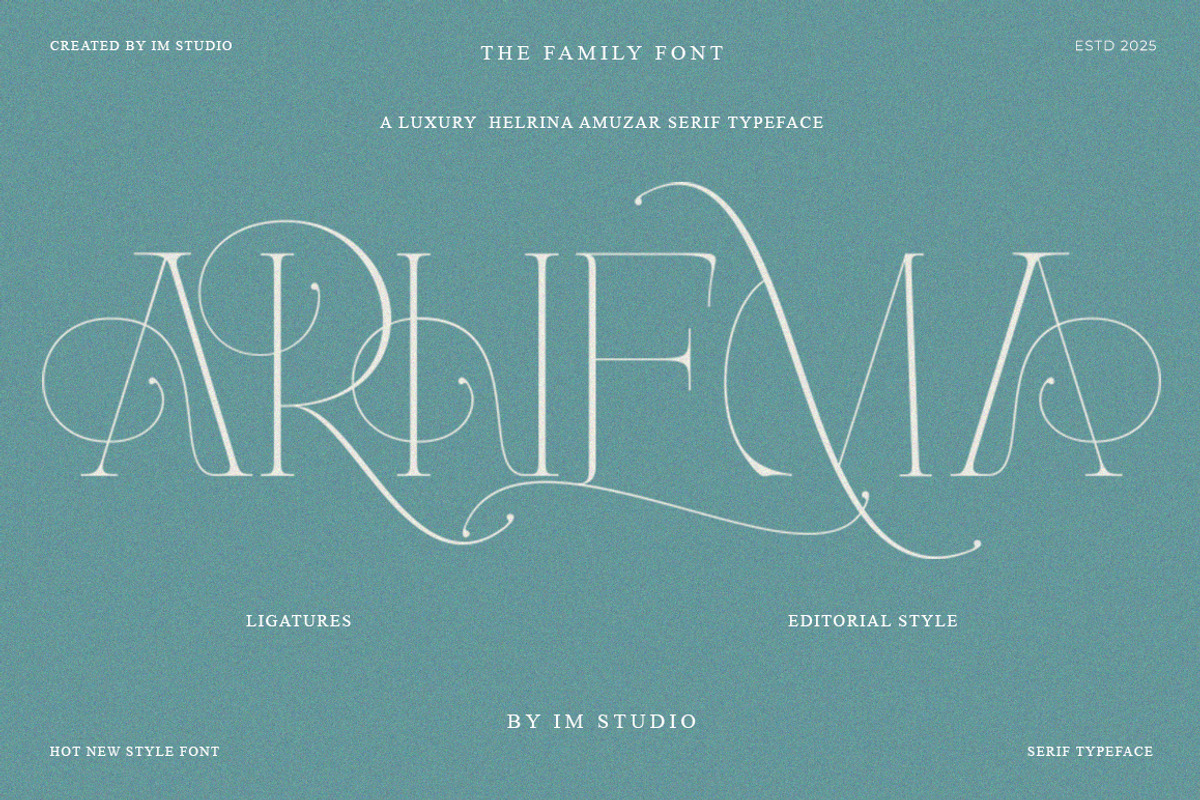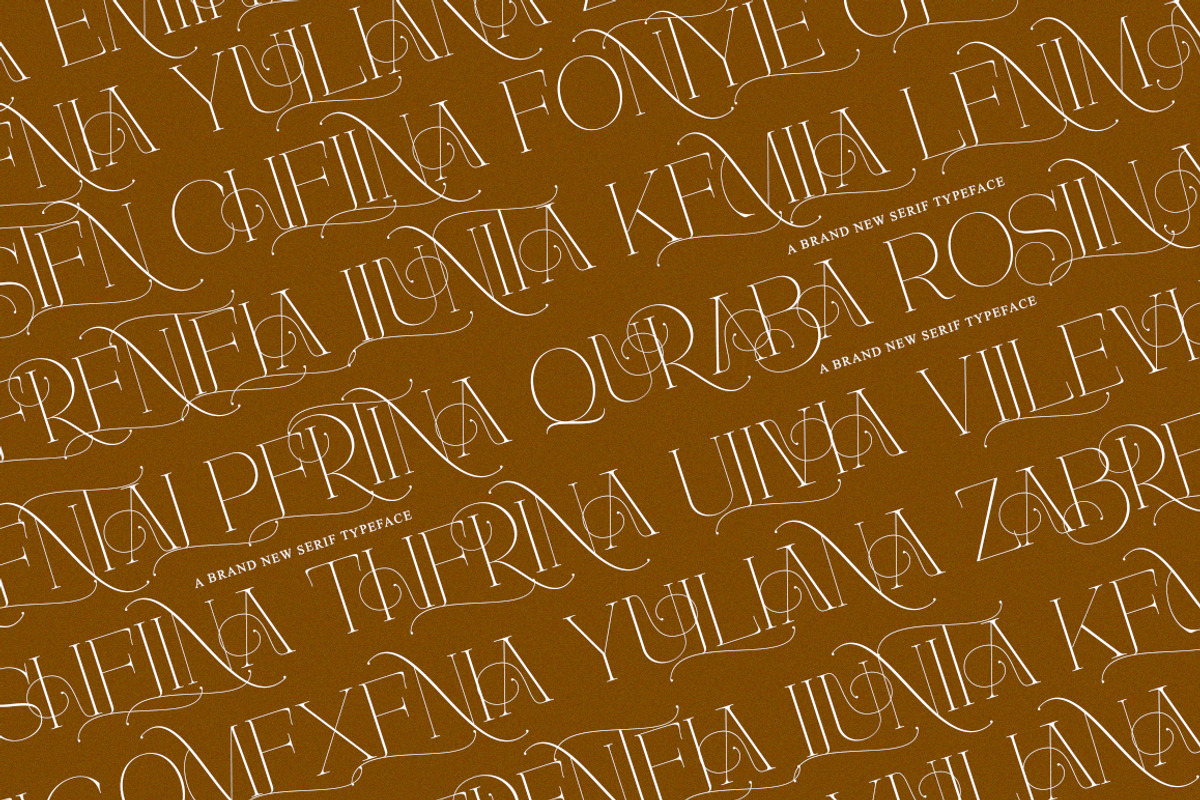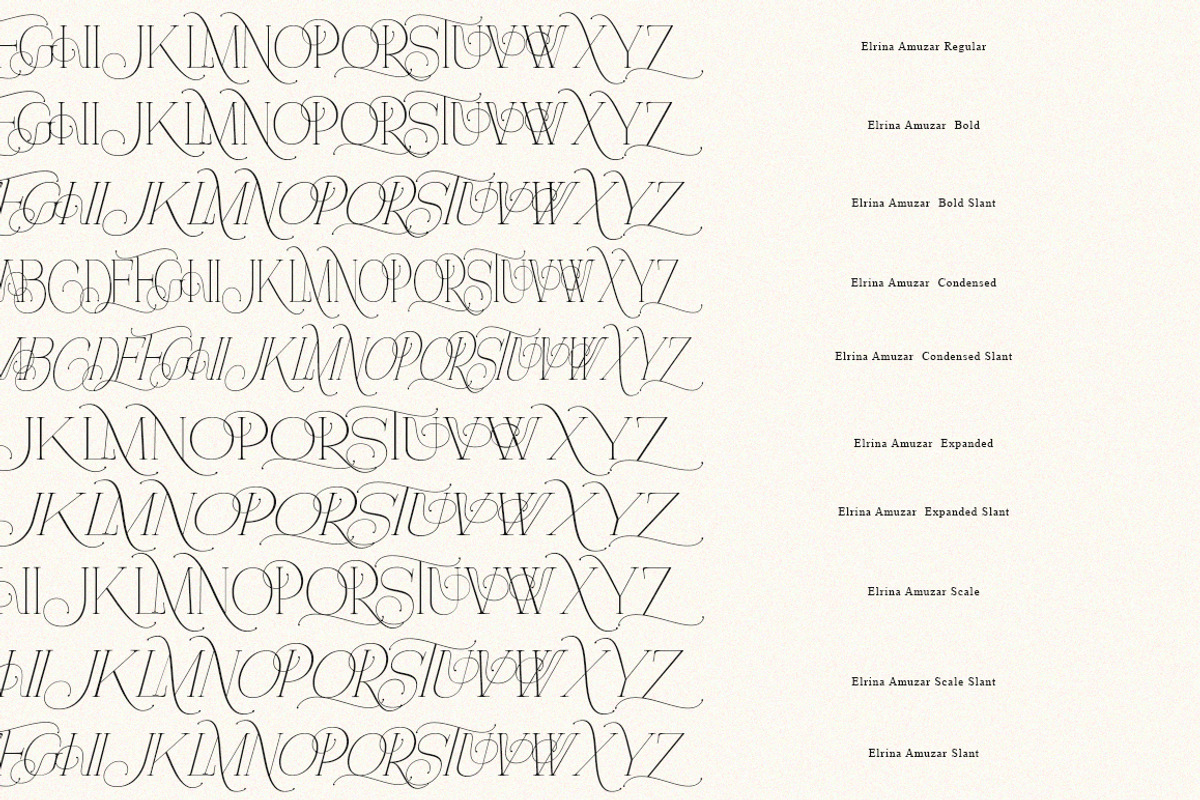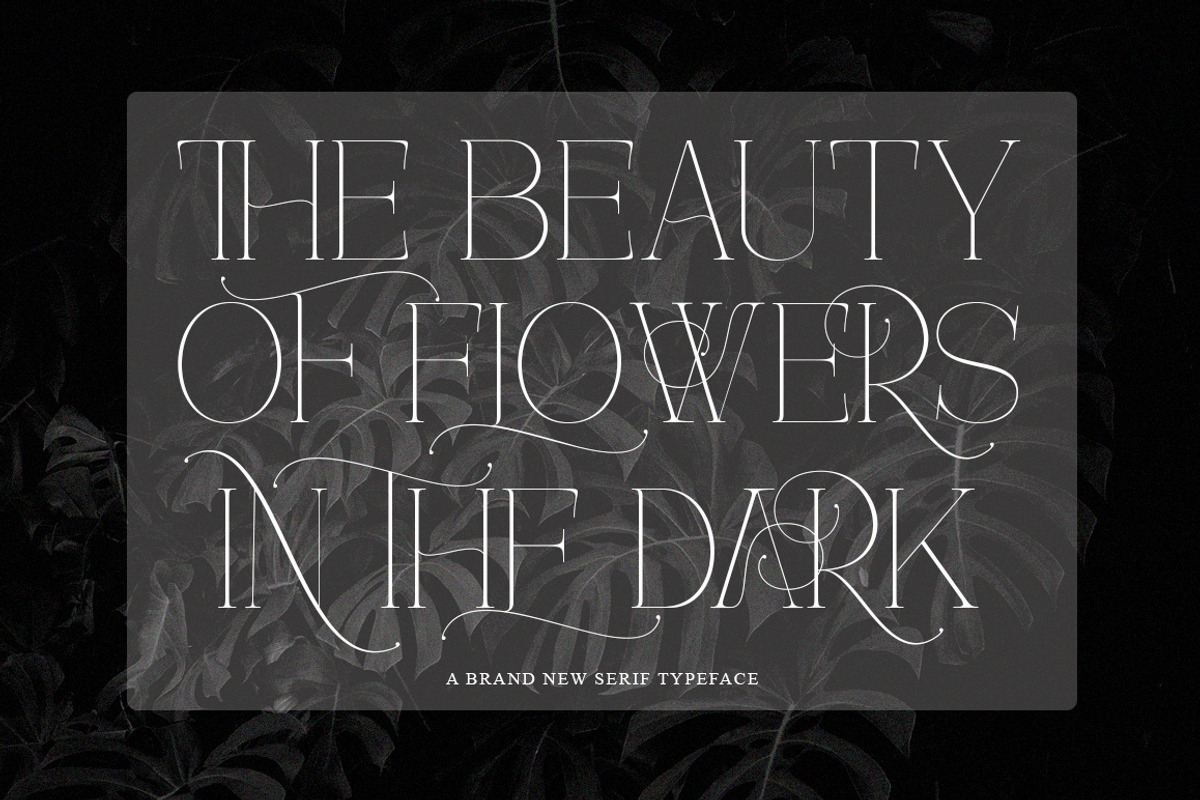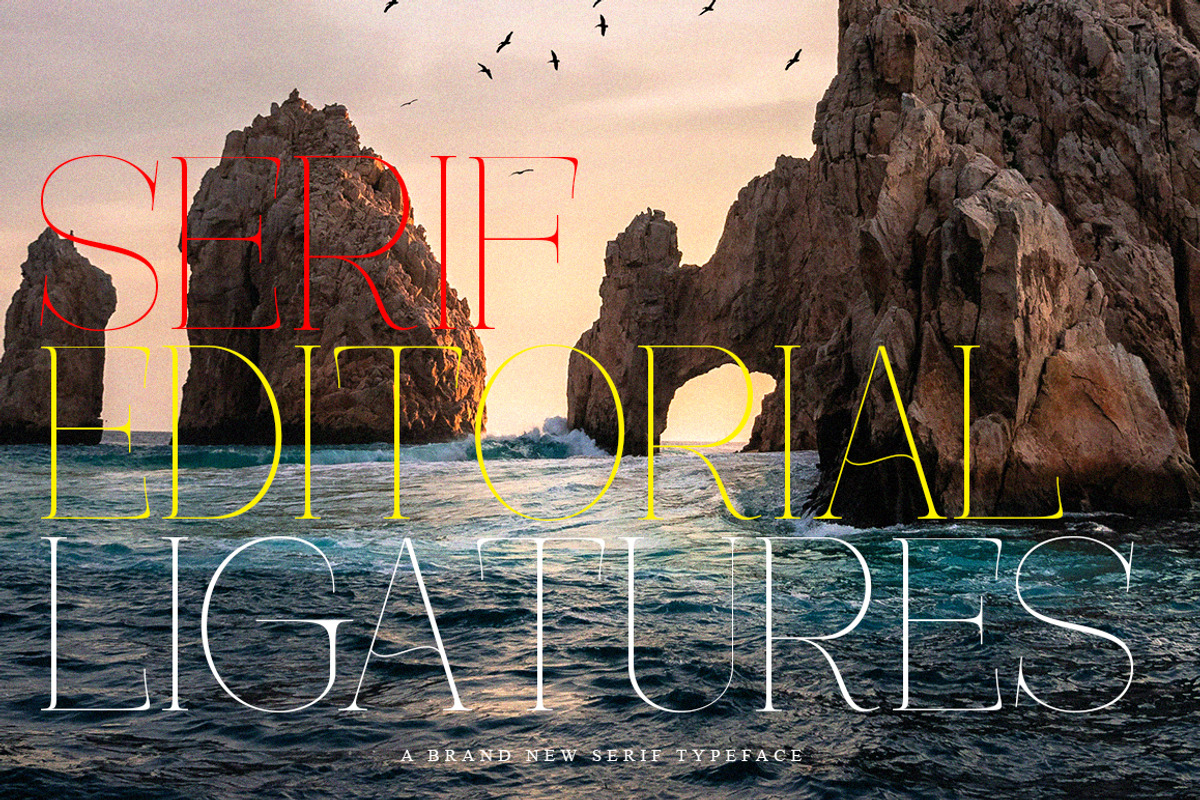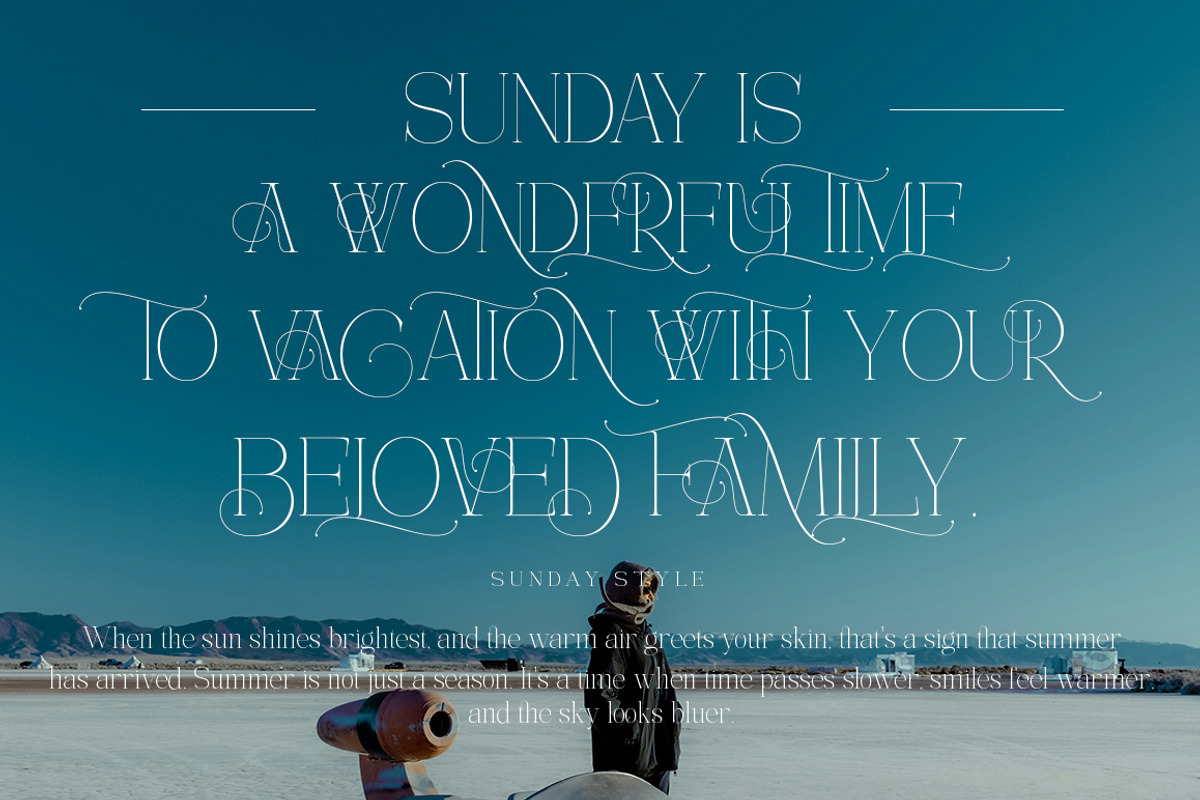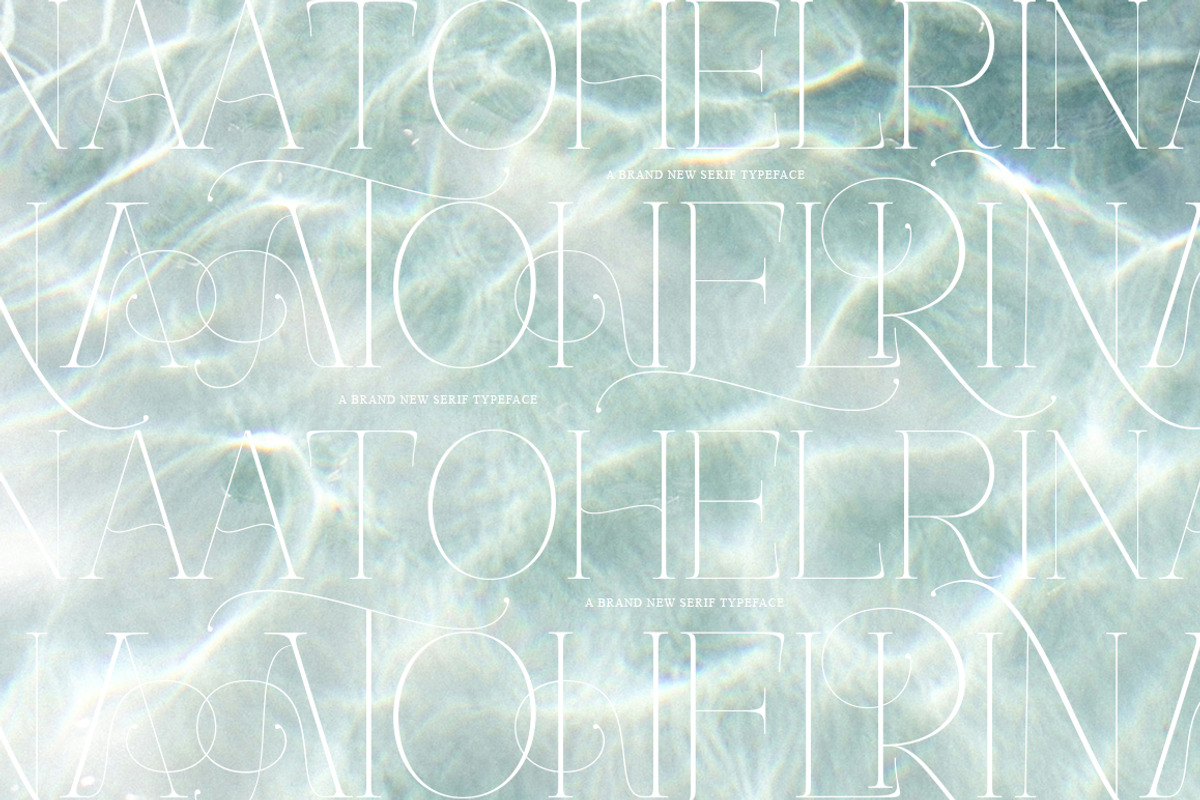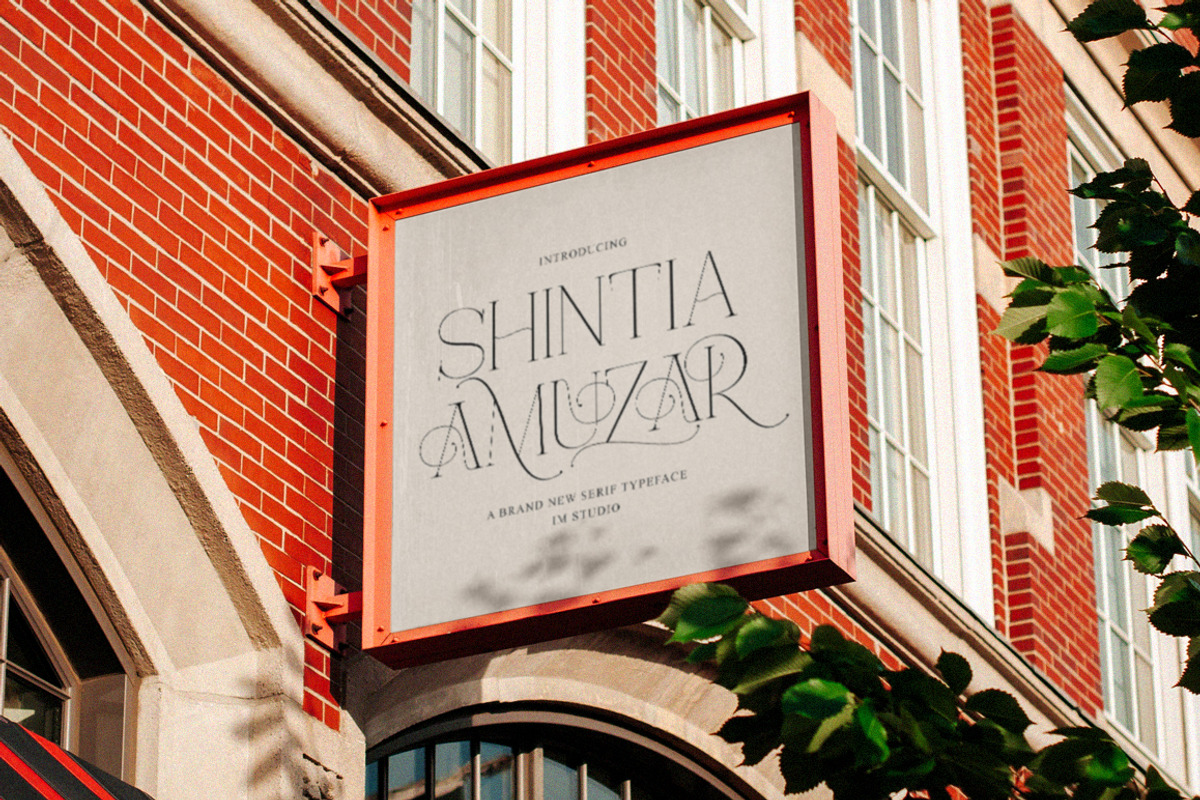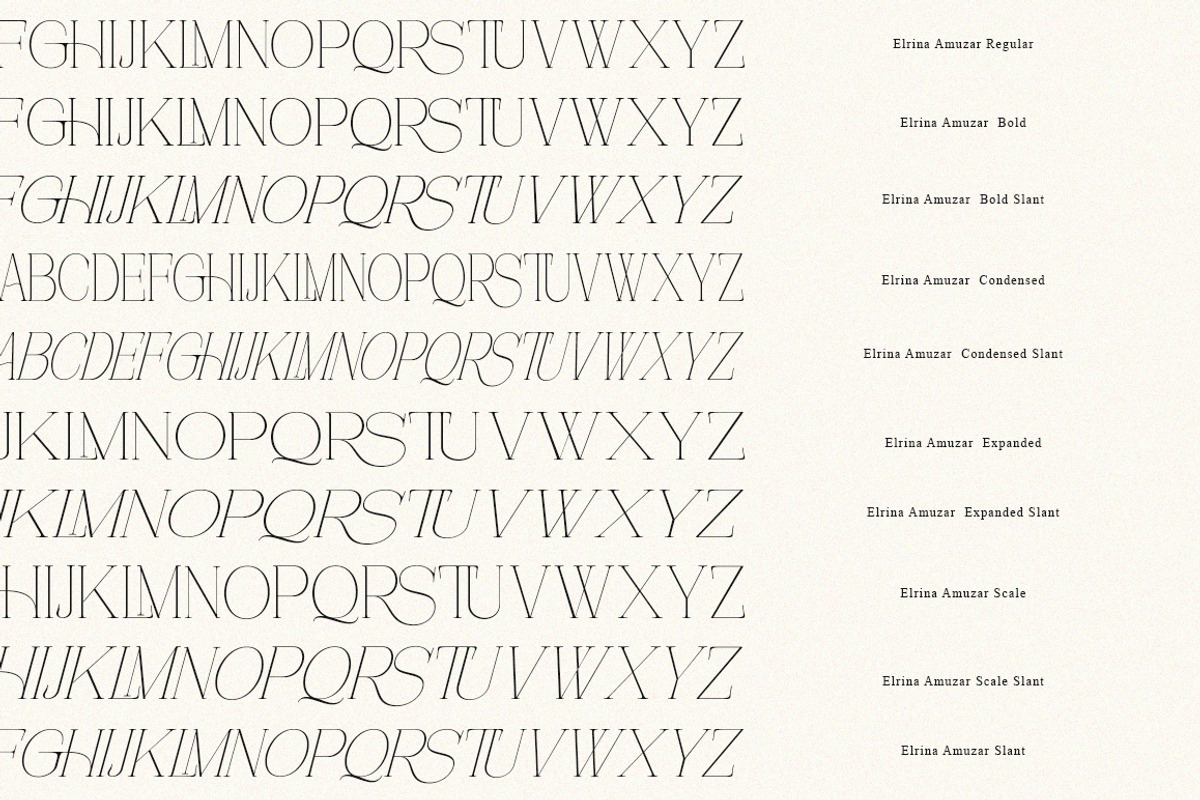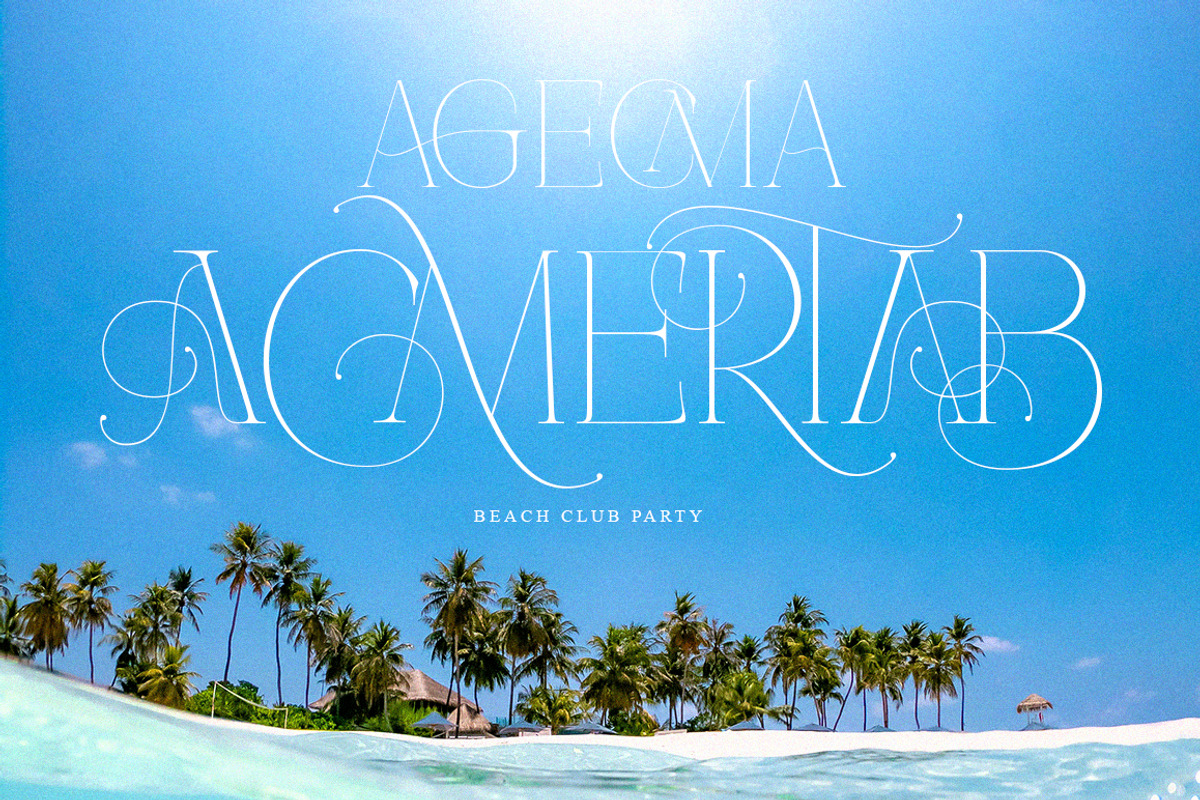
Helrina Amuzar | 10 Font Style
Helrina Amuzar 10 Style Font Family – Elegant & Unique Typeface for Branding
Helrina Amuzar is an elegant font with a unique touch specifically designed for branding and logo design. Inspired by our experience designing visual identities for various companies, this font is designed to meet the need for a classy yet distinctive typographic style.
With Helrina Amuzar Family, you can create an elegant, professional, and memorable logo. This font is also perfect for a variety of other creative design needs.
Full features:
Capital font
Multilingual symbols